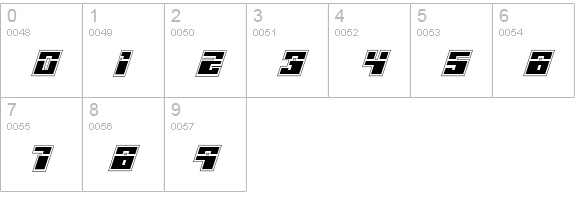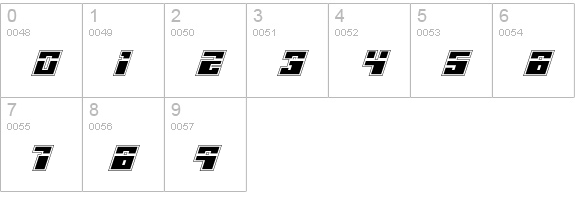
Micronian Laser Academy Italic is a distinctive, italic variant in the Micronian typeface family \xE2\x80\x94 well suited to design and typography projects.
Introducing Micronian Laser Academy Italic font - a sleek and futuristic typeface perfect for adding a touch of sci-fi flair to your projects. This bold and dynamic font features sharp, angular lines that give it a modern and edgy look. Whether you're designing a poster, website, or logo, Micronian Laser Academy Italic font is sure to make a statement. And the best part? This stunning font is available for free download at FontsMarket.com. That's right, you can elevate your designs with this cutting-edge font without spending a dime. Don't miss out on this opportunity to enhance your creative projects with the Micronian Laser Academy Italic font - download it now and take your designs to the next level!